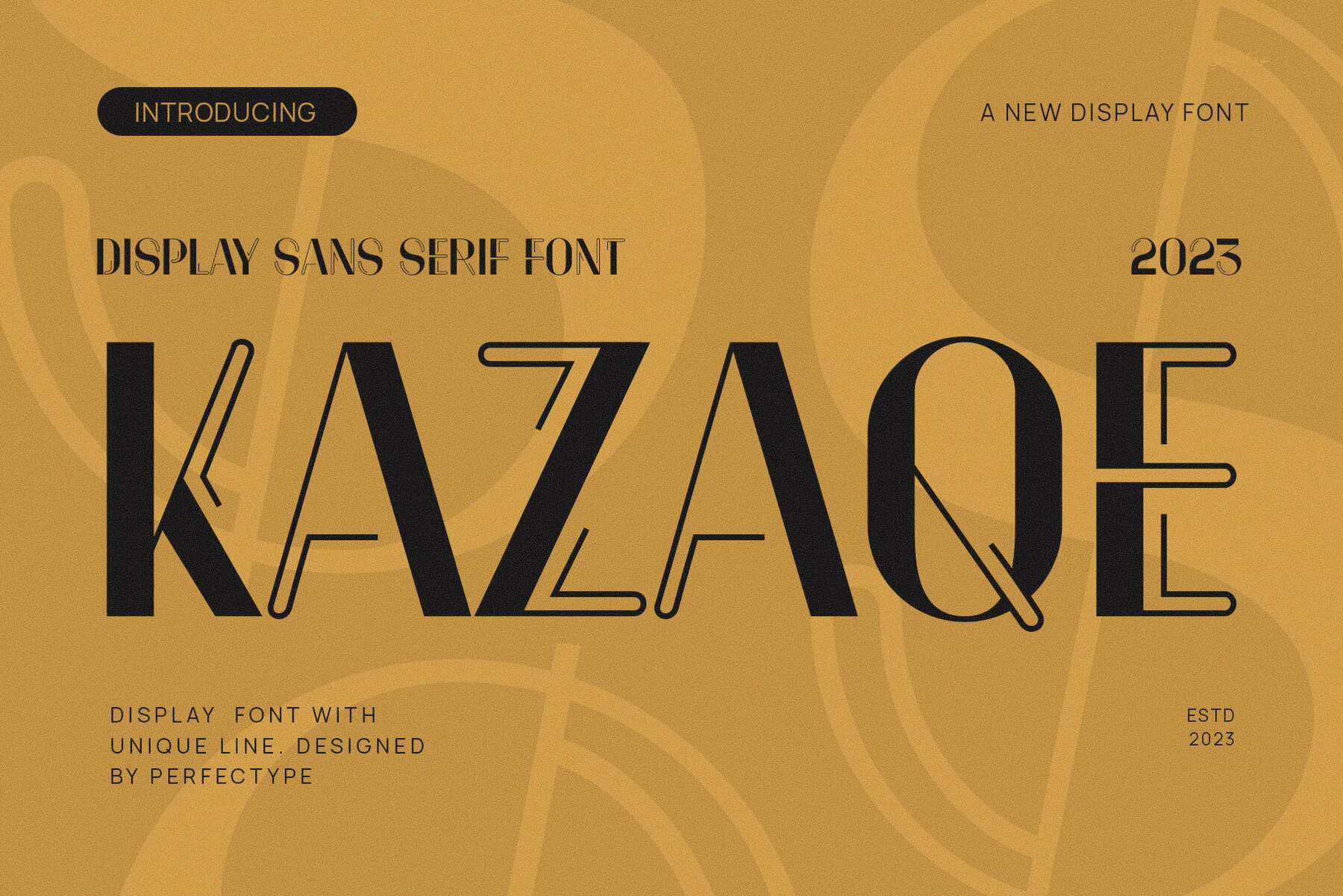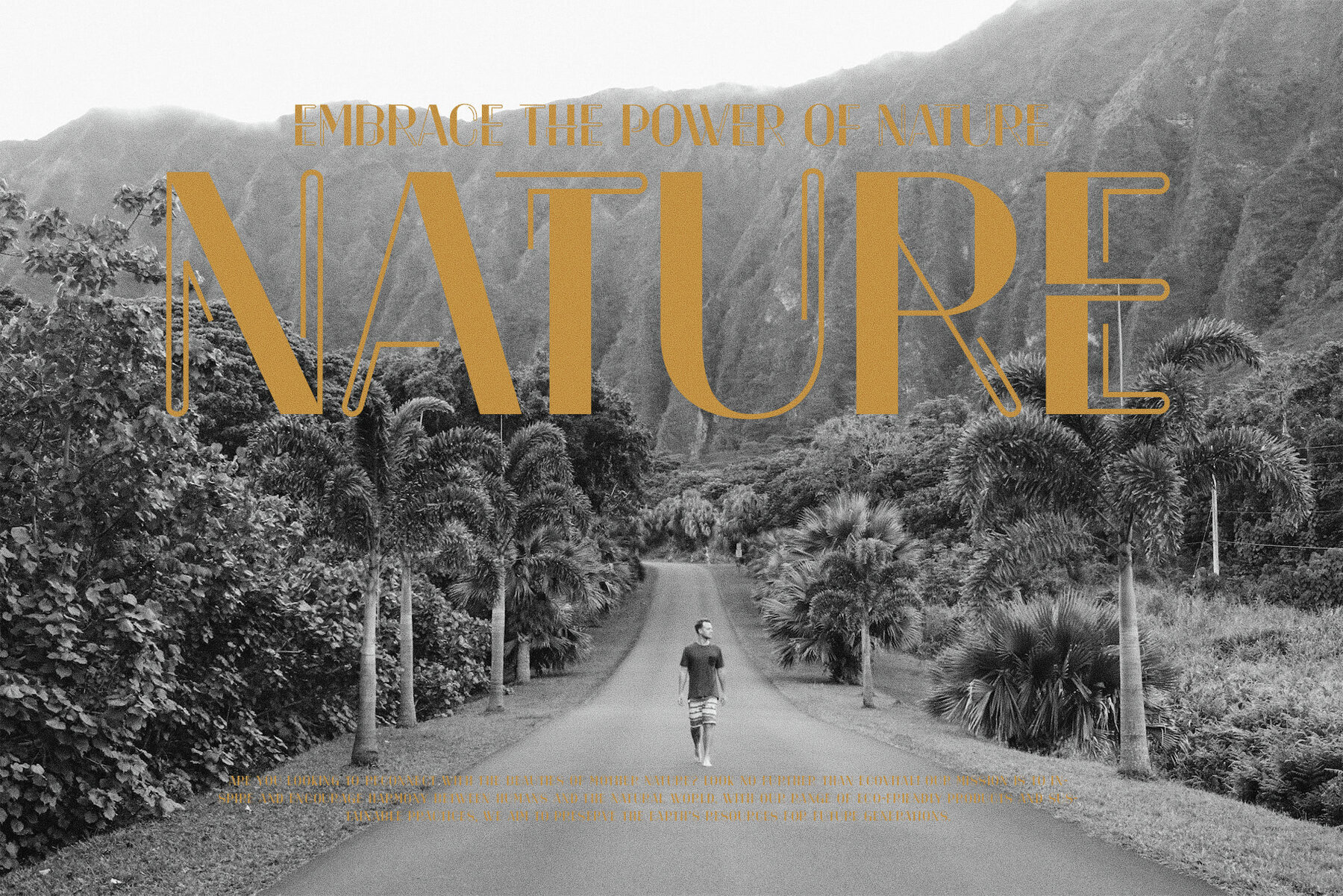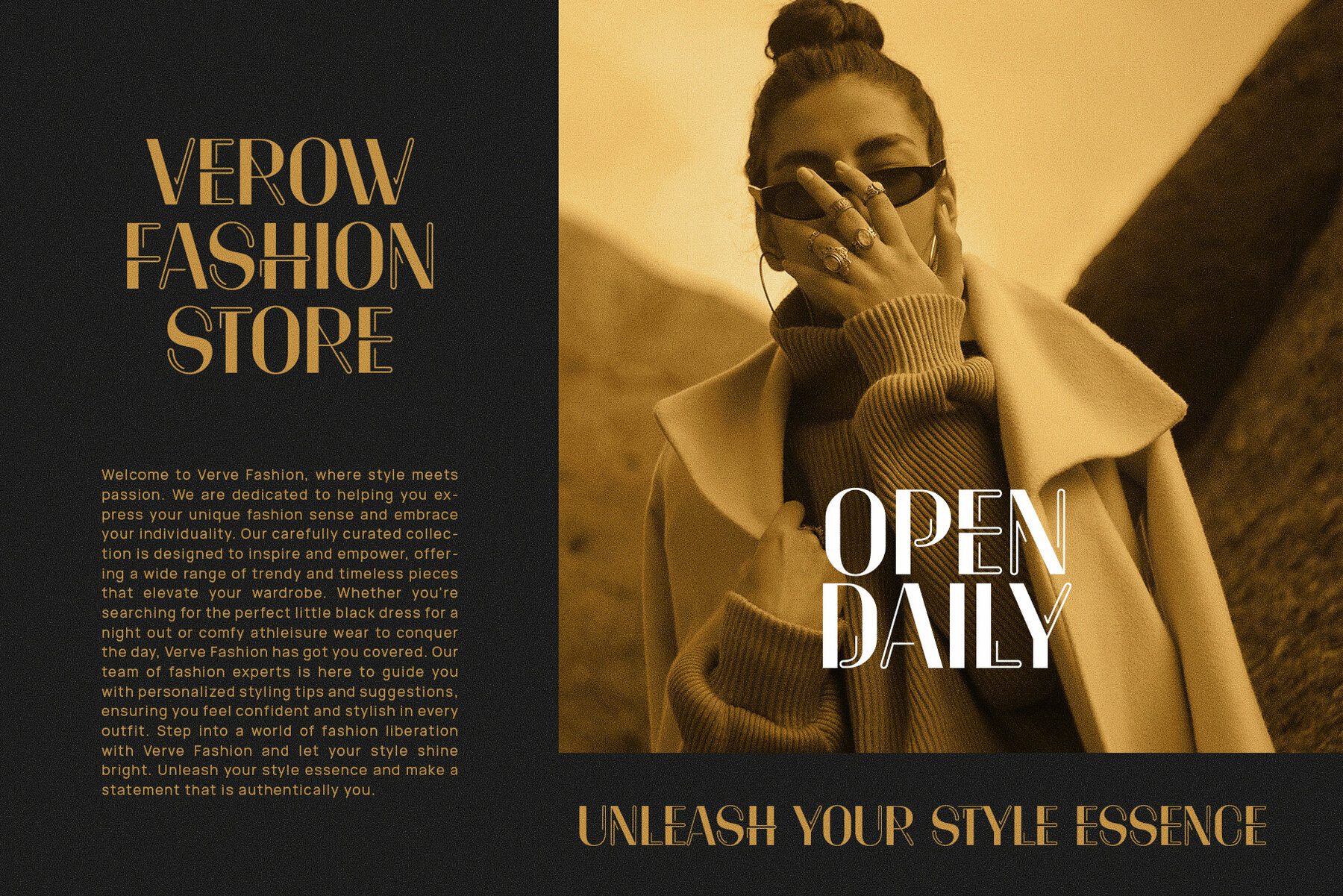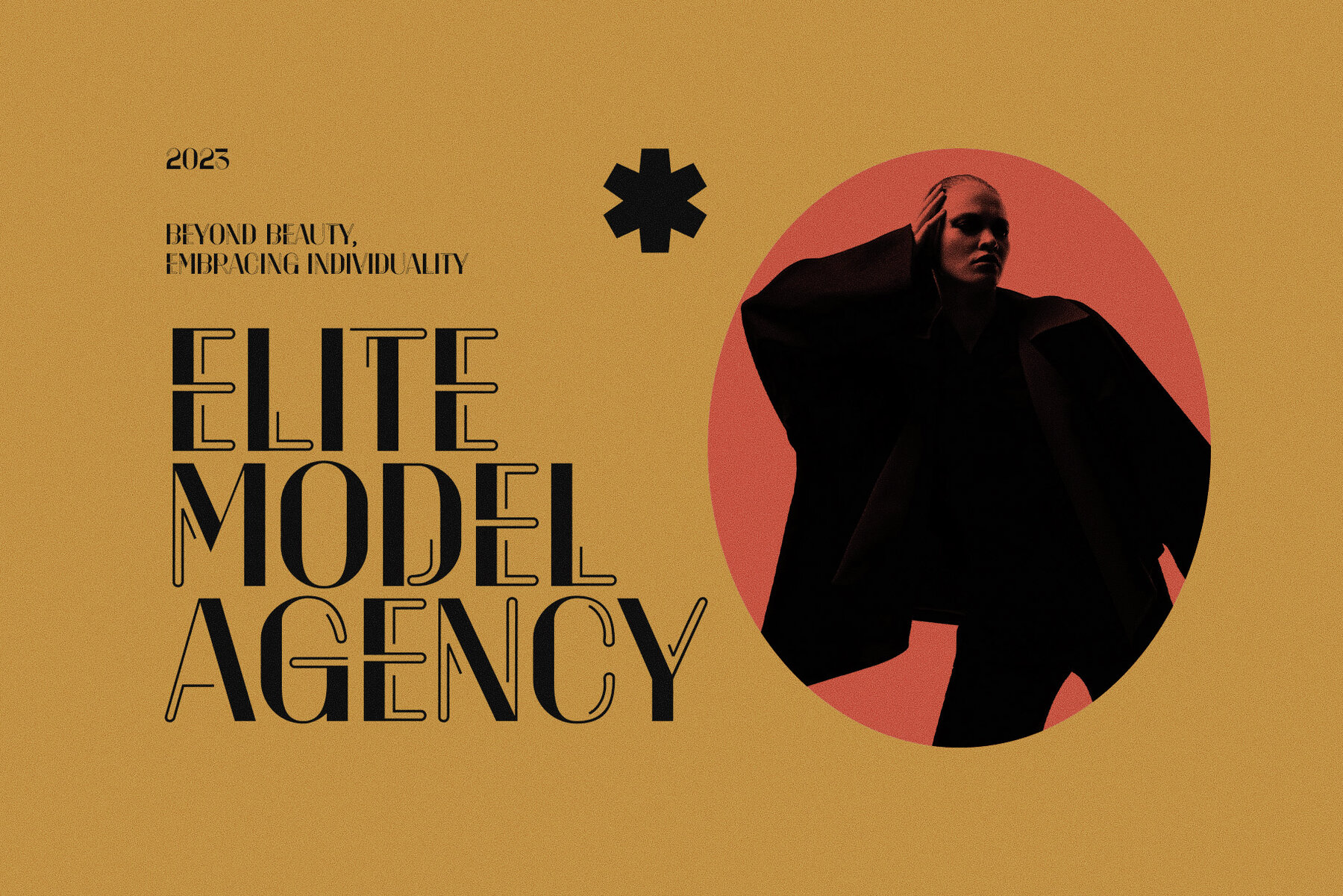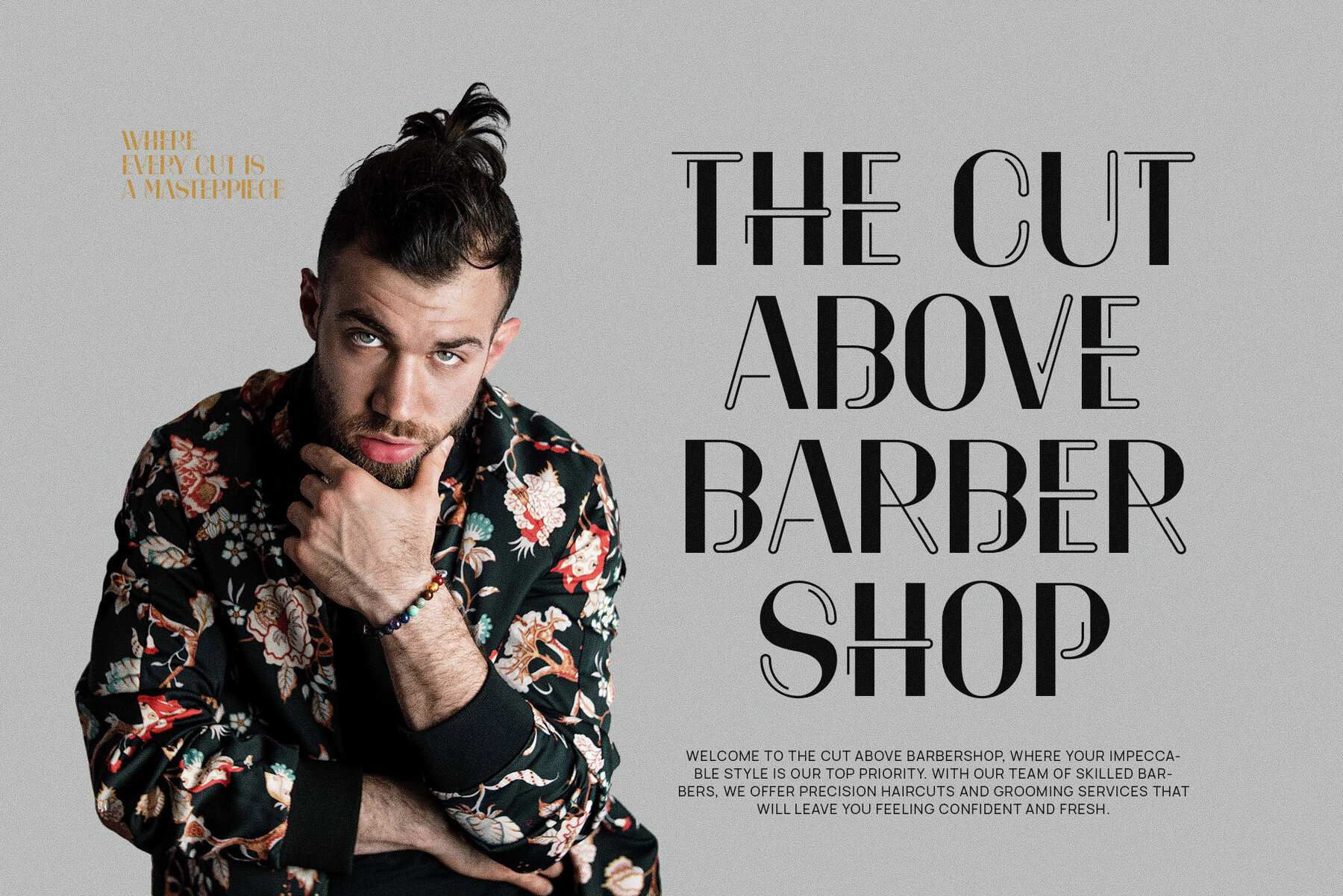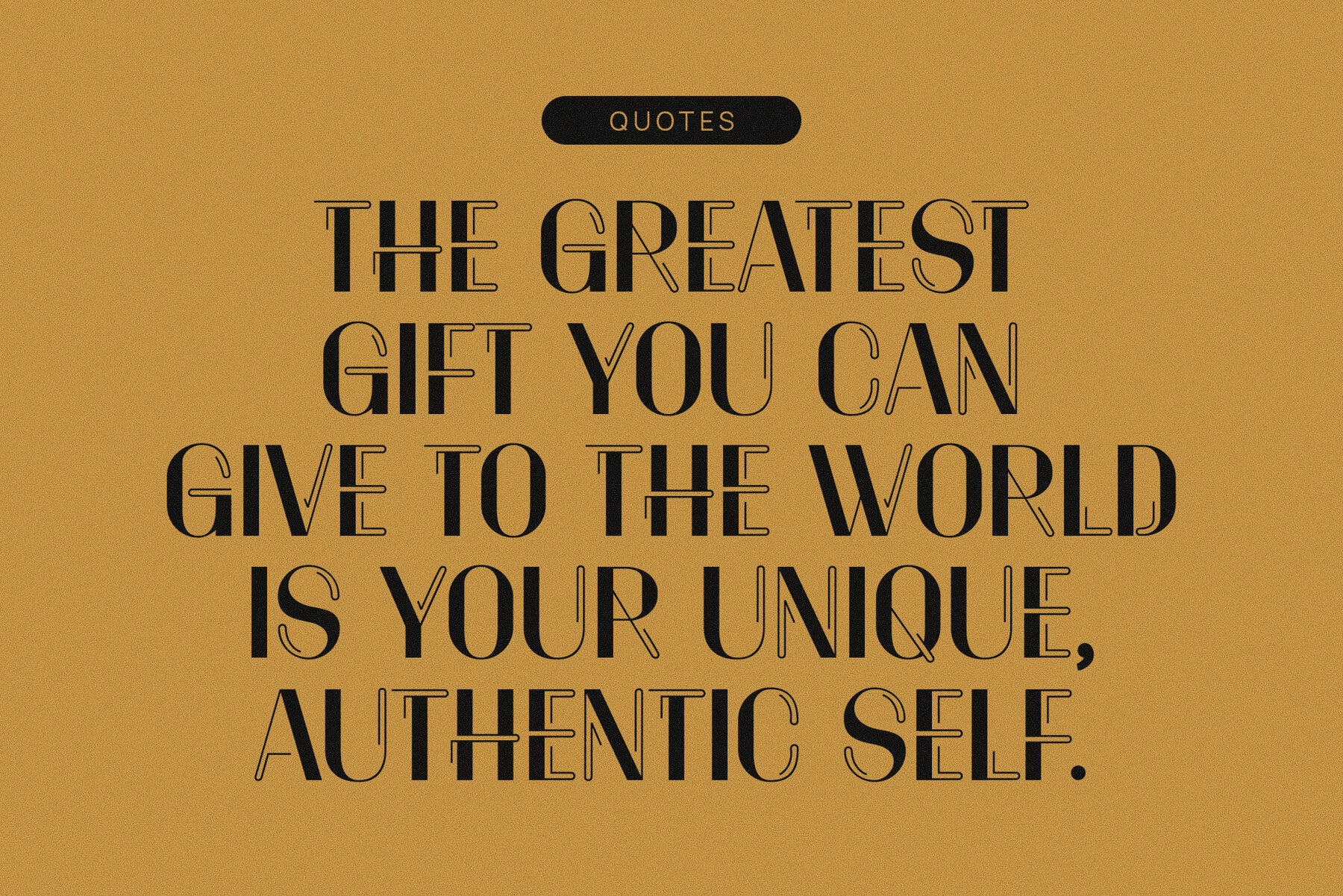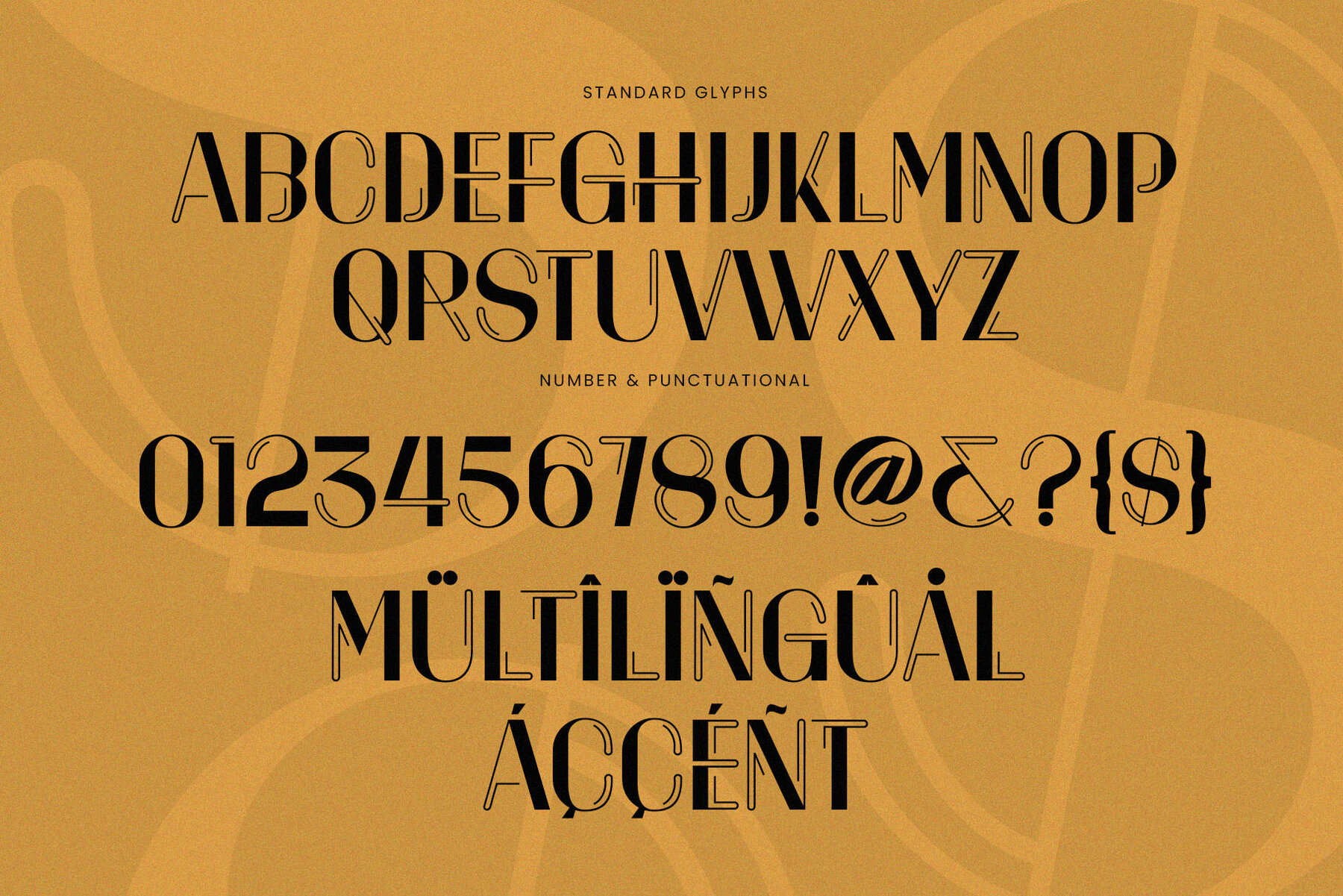
Kazaqe Font
Kazaqe Regular
This is a sans serif font. This font was created with balance and high readability. In making it, we prioritize neatness and a detailed philosophy, so that this font is good to use for all your branding needs. This font is intended for any graphic design purposes such as brochures, videos, advertising brands, logos, magazines, layout designs, posters, post templates, games, and others. What's Included:
- Character standards
- Numbers & Punctuation
- Accented Characters (Western Europe)